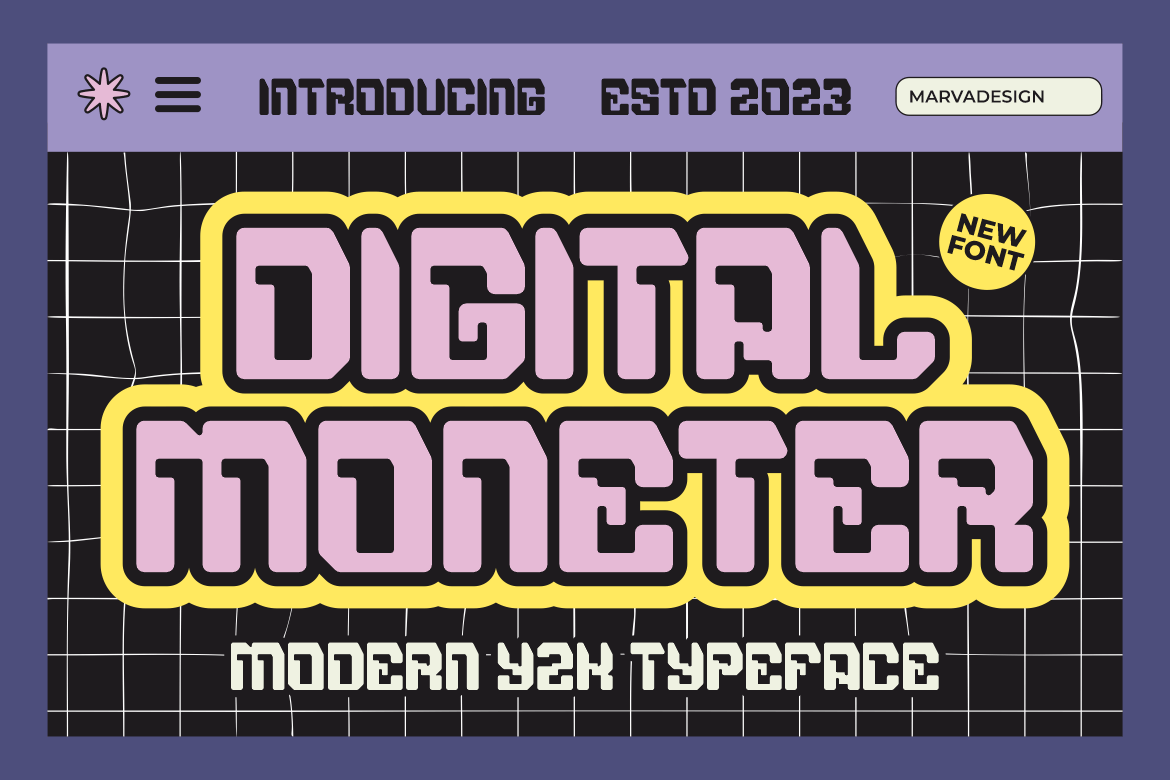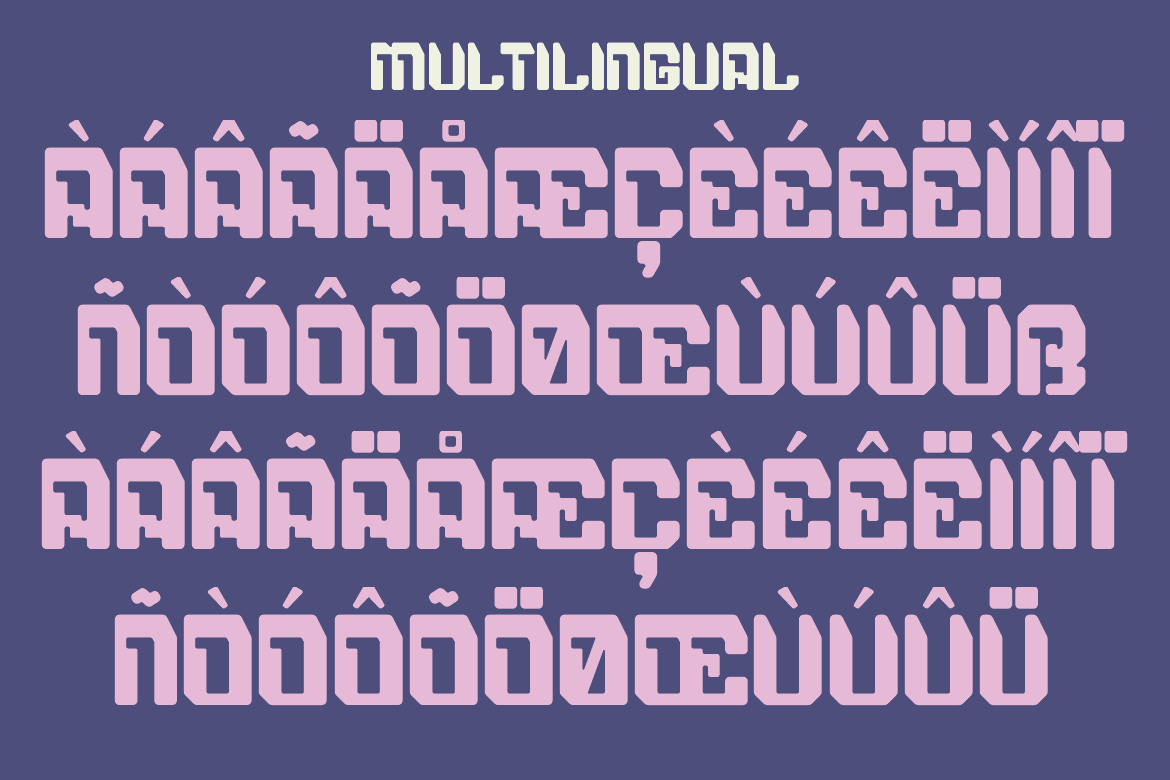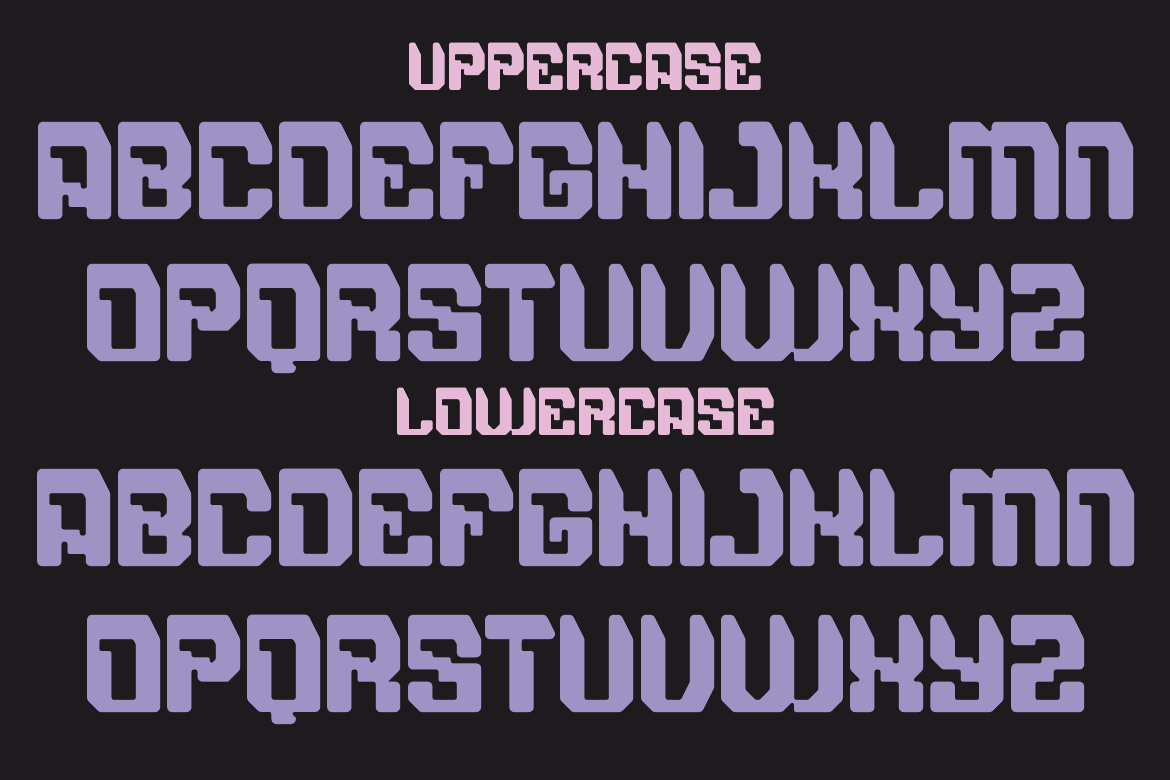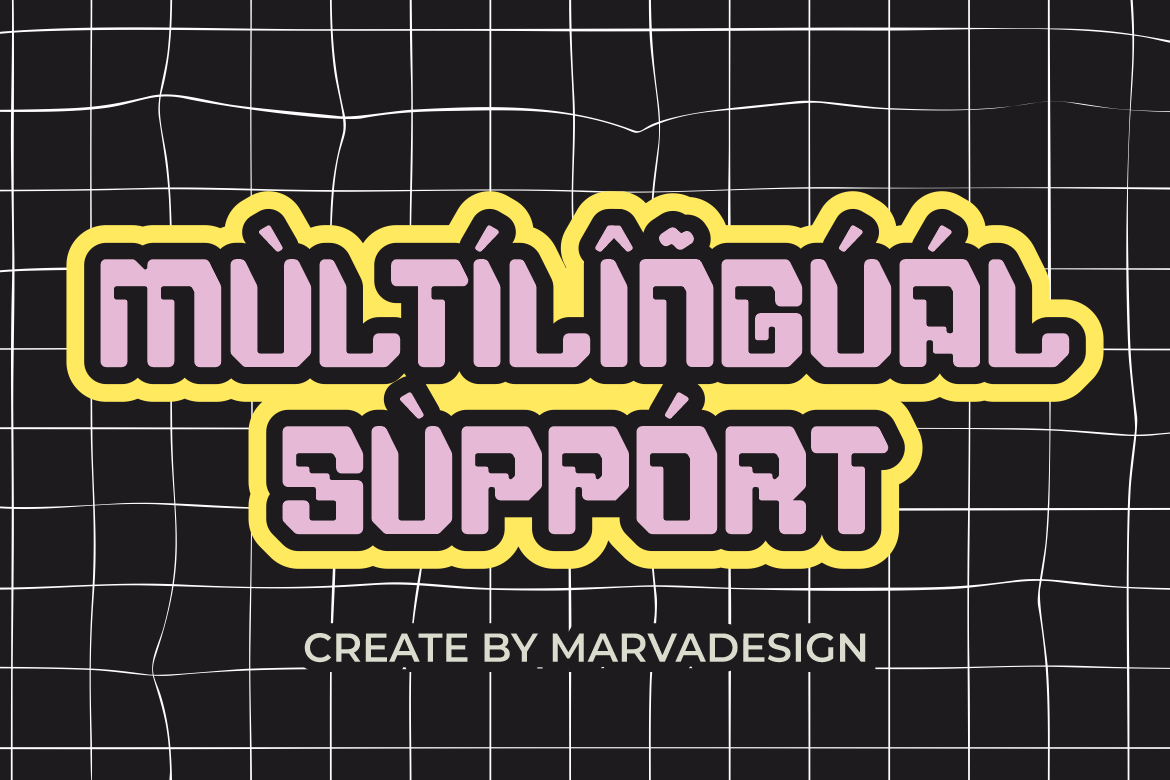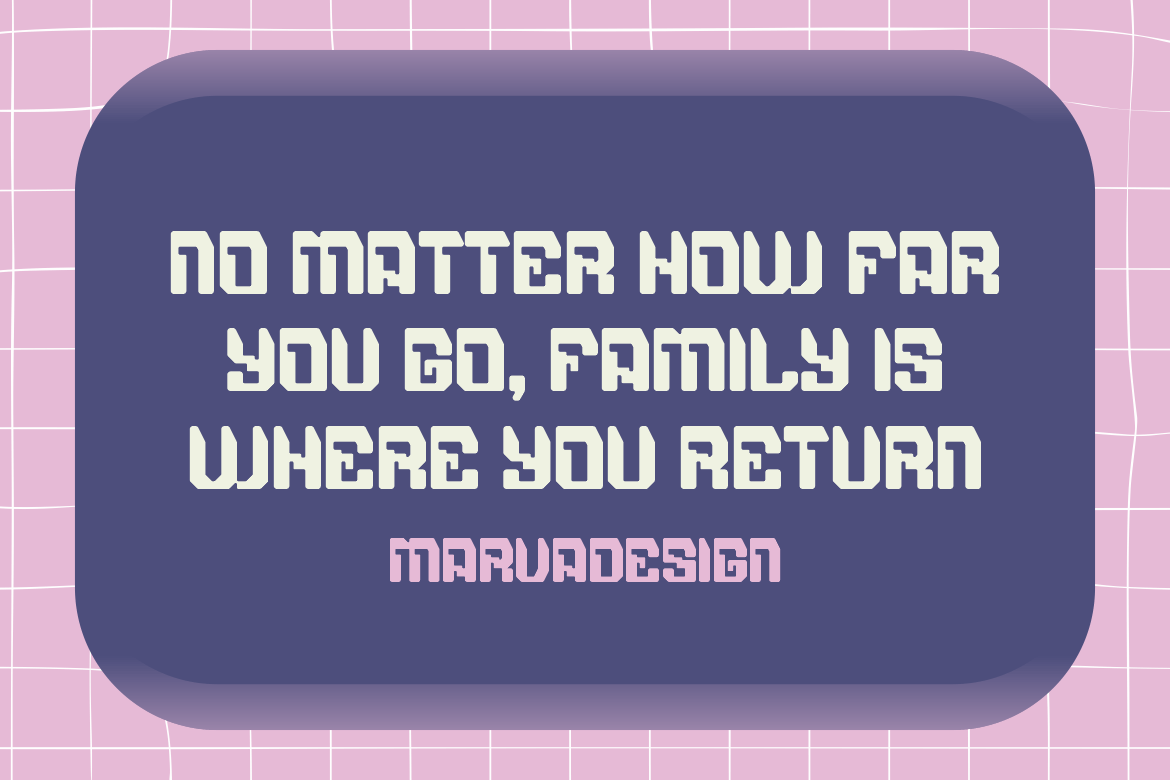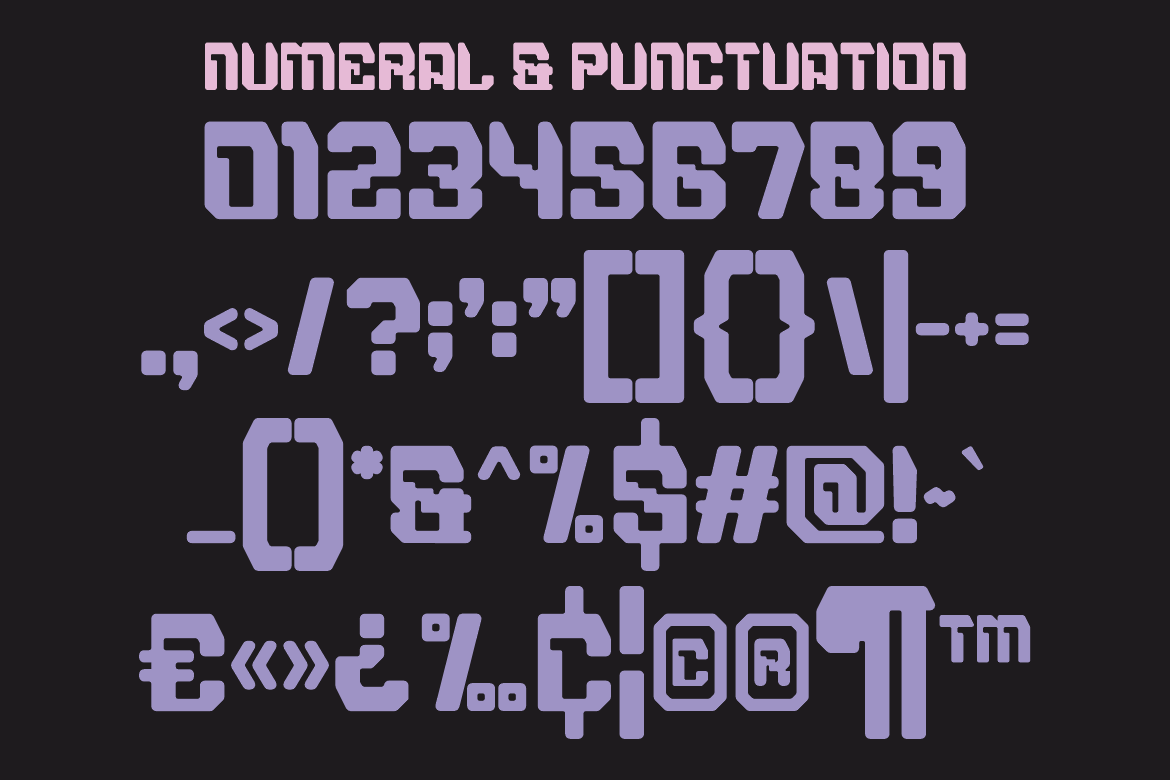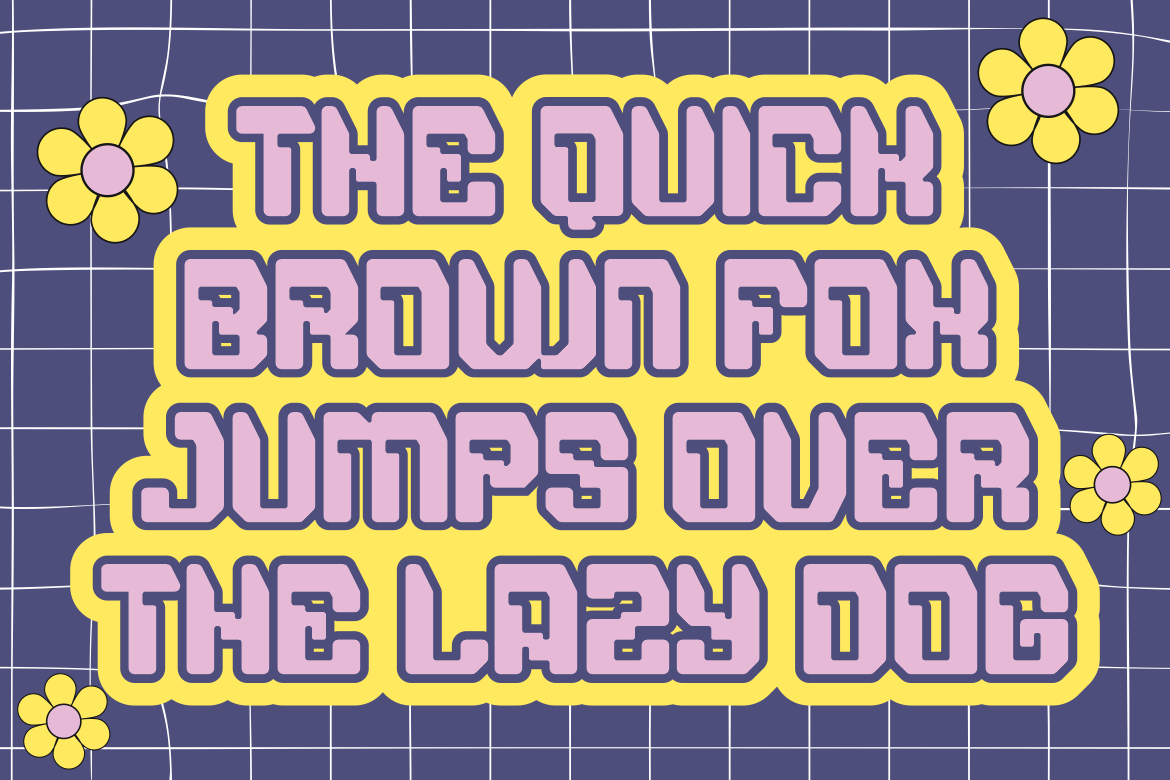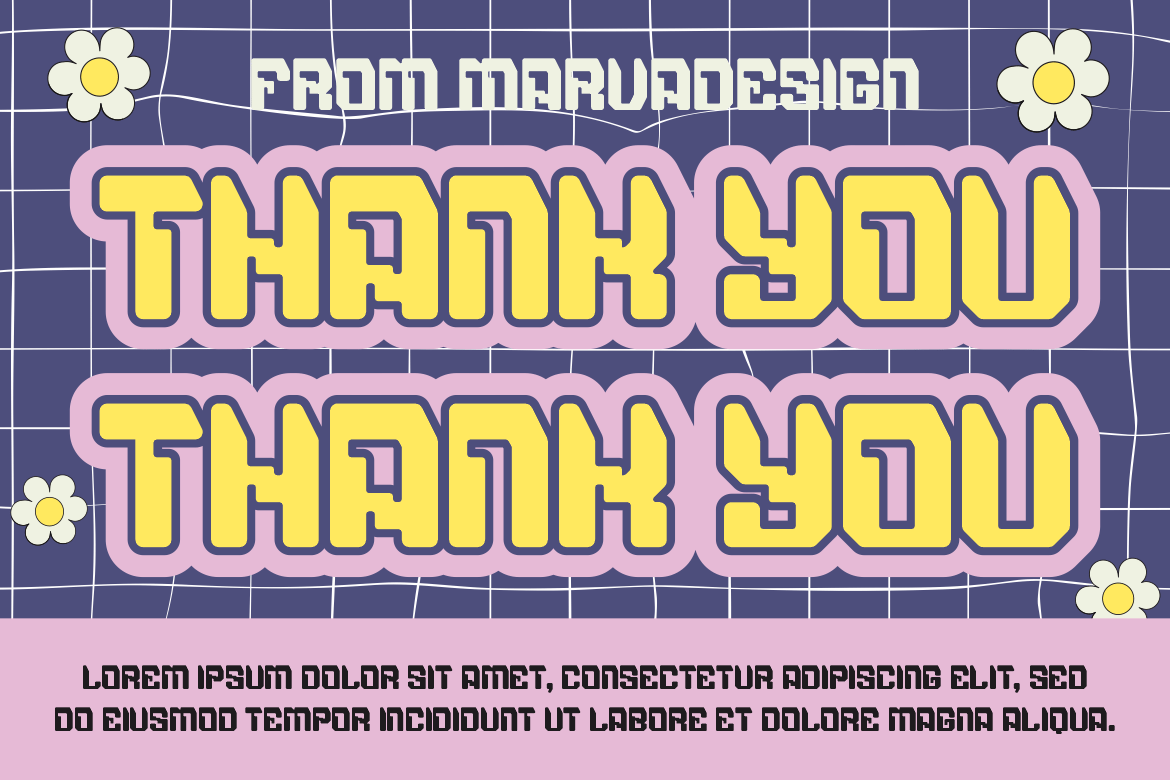
Digital Moneter – A Modern Techno Y2K Font
Introducing our new product Digital Moneter Font – A Modern Techno Y2K Font
Digital Moneter Font – A Modern Techno Y2K Font authentic display font. The font is suitable for any branding project like logo, Template Design, Product and many more. outstanding in a wide range of contexts.